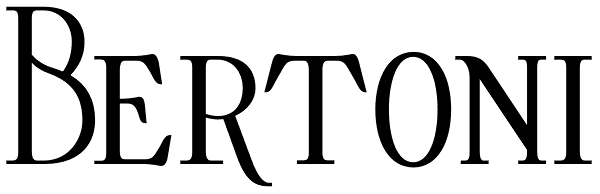
Bertoni
Bertoni is a high contrast Didone family of twenty faces, which combines extreme legibility with distinctive character. It is able to hold its own in modern usage while having features rooted in a deep period charm. The family includes two widths as...